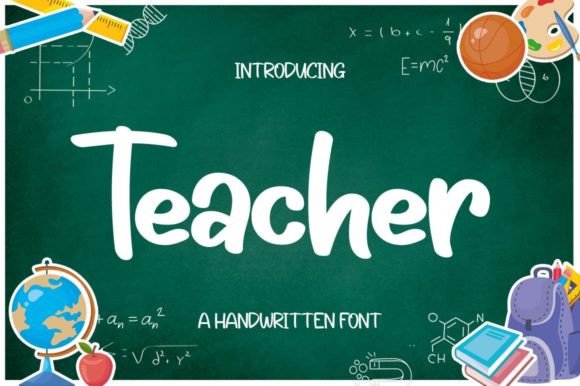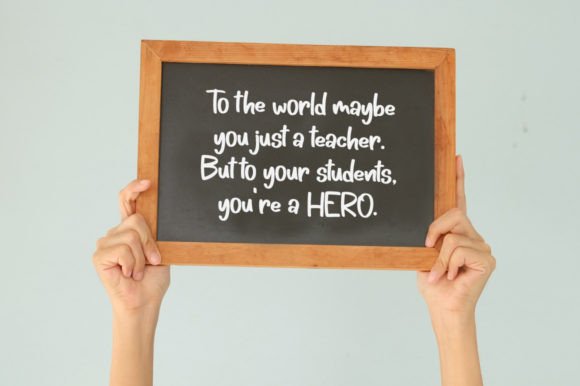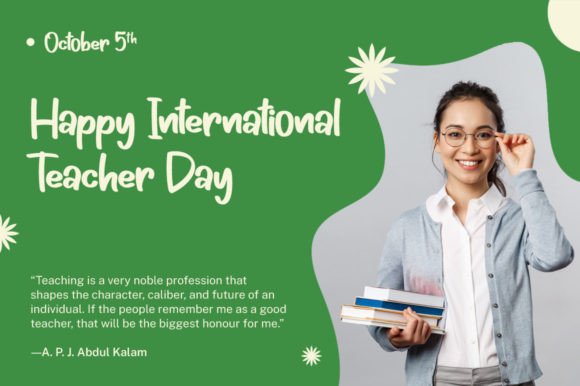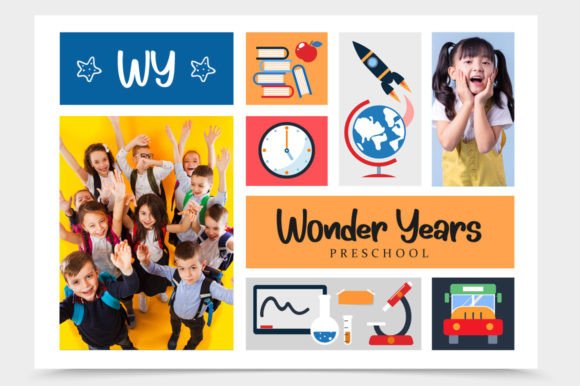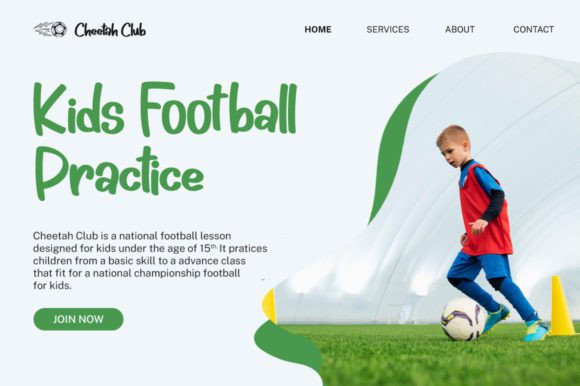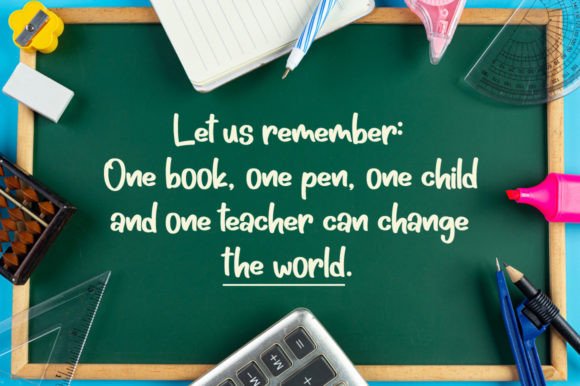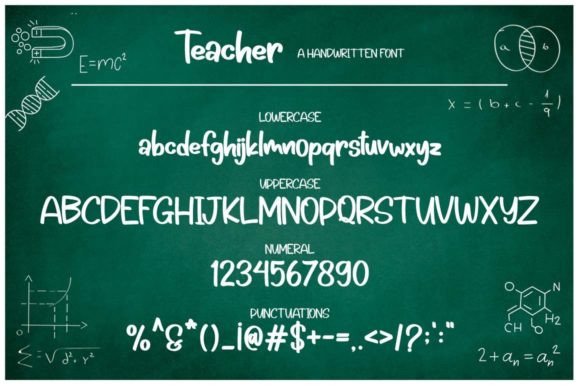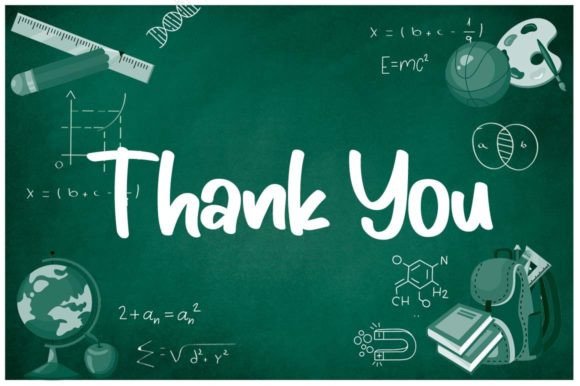
Teacher Font
Teacher Font: Authentic Handwriting for Educational Designs
“Teacher” is a graceful handwritten font perfect for chalkboard quotes and educational materials. Its authentic look adds a personal touch to your designs.
Key Features of Teacher Font
• Authentic Style: Looks like real handwriting on a chalkboard.
• Versatile Use: Great for quotes, classroom materials, and rustic designs.
• Simple Appeal: Adds warmth and approachability to your projects.
Ideal Uses for Teacher Font
Educational Materials
Teacher is perfect for creating engaging back-to-school materials. Its chalkboard-like style makes lessons more inviting and fun.
Inspirational Quotes
Use this font to design motivational quotes that look hand-written, adding a personal touch to your poster designs.
Rustic Designs
Teacher fits well with rustic themes, making it ideal for wedding invitations, signage, and DIY projects.
Why Choose Teacher Font?
Teacher offers more than just a font; it’s a tool to add authenticity to your work. Here’s why it stands out:
• Creates a nostalgic feel in your designs
• Brings a genuine, handmade look to digital projects
• Versatile enough for various creative uses
By using Teacher, you open up new design possibilities. Its simple style works well in many contexts, from logo design to greeting cards.
If you want a font that’s both delicate and authentic, Teacher is a great choice. It’s perfect for adding a genuine touch to your work, especially for chalkboard-style designs and educational materials.
Explore how Teacher can transform your projects. From classroom materials to rustic wedding designs, this font brings a personal, authentic feel to your creations.